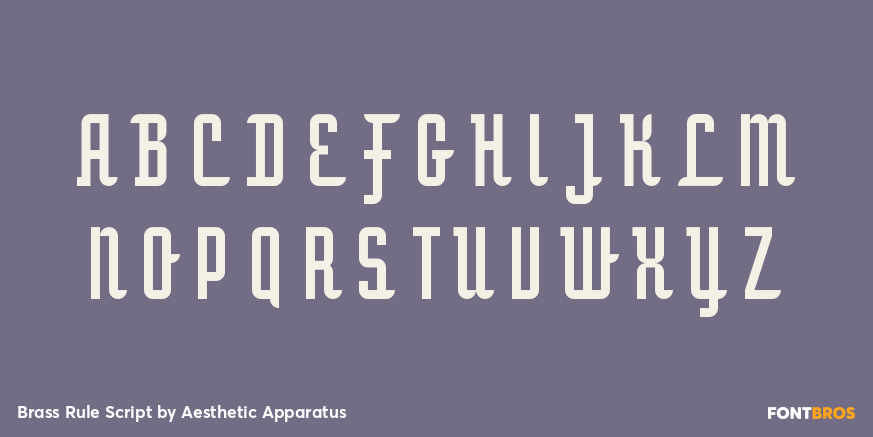
Brass Rule Script
Font Family by Aesthetic Apparatus
Brass Rule Script is a geometric upright script constructed in the vein of the experimental ?brass rule letters? from the 1952 German typography book Hoffmann's Schriftatlas, combined with mid-century commercial chrome emblems. This OpenType font is constructed to include contextual alternatives, allowing for greater control over how letters and words terminate.